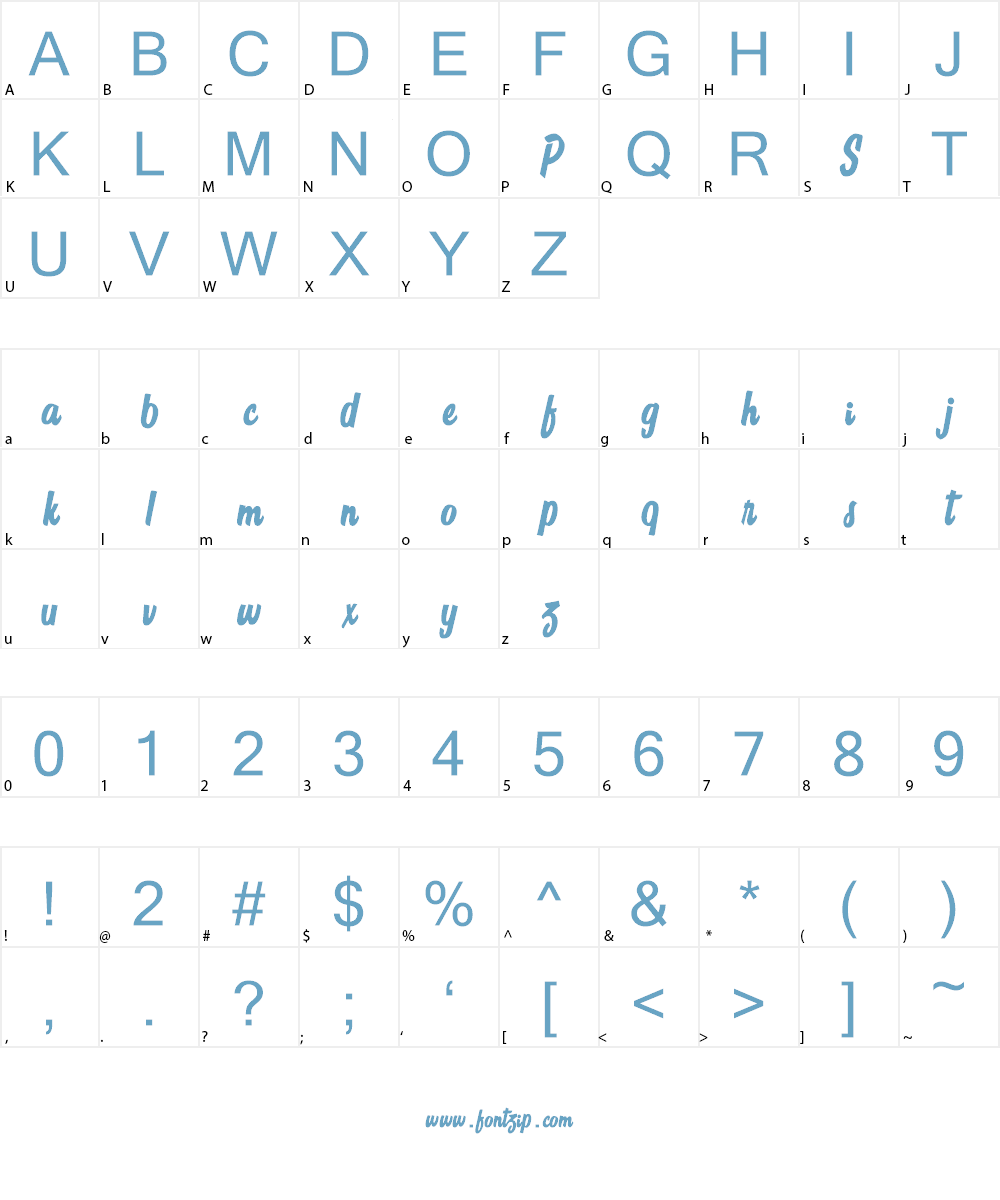
Well its not a band name, let me introduce you The Sign Panthers, a double fonts with implementations from sign painting style which are very hype in that era (you name it, as long as its old, its all good). When you need something bold, strong, classic, and punch you in your face, they're never get any wrong with that.